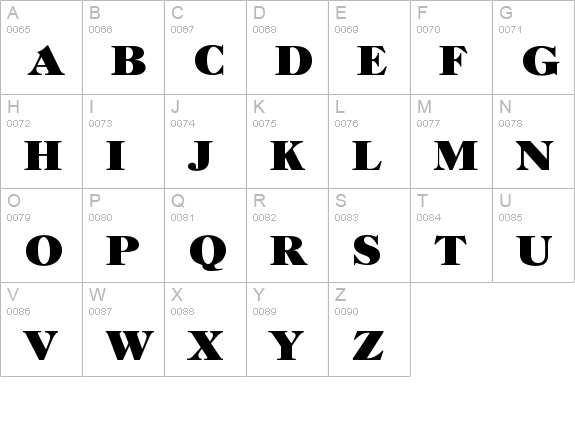
Horsham-Heavy Font Details
Horsham-Heavy is a heavy, high-impact variant in the Horsham typeface family \xE2\x80\x94 well suited to high-impact headlines, posters, and display advertising.
Horsham-Heavy is a bold and striking font that exudes strength and confidence. Its thick, heavy lines make a bold statement, perfect for making headlines and titles stand out. The sharp edges and clean lines give Horsham-Heavy a modern and sleek look, making it ideal for a wide range of design projects. What sets Horsham-Heavy apart is that it is available for free download at FontsMarket.com. This means that you can easily access this powerful font without any cost, making it a valuable addition to your font collection. Whether you're working on a poster, logo, or website design, Horsham-Heavy is sure to make a strong impact and elevate your projects to the next level. Download Horsham-Heavy today and unleash its bold potential in your creative work.